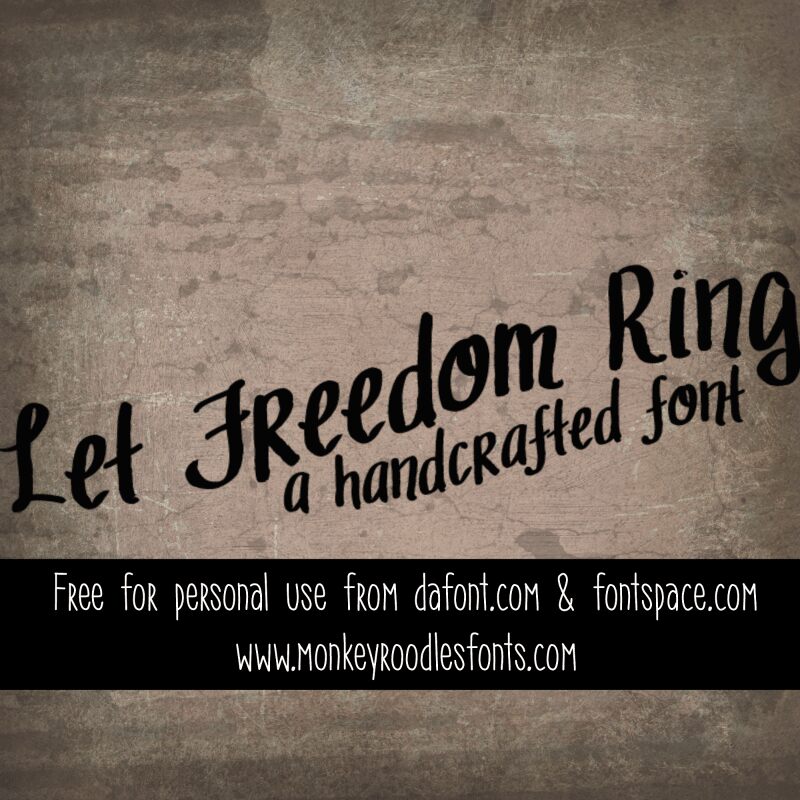
The MRF Let Freedom Ring font, crafted by designer Sabrina Schleiger, exudes a captivating handwritten charm. Its organic, fluid strokes and playful, rhythmic movement evoke a sense of joyful expression, evoking feelings of liberation and carefree spirit. The font's unique character is amplified by its distinct ligatures and expressive flourishes, lending a touch of artistry and personality to any design.
This versatile font lends itself well to a variety of applications, from eye-catching headlines and impactful branding to heartfelt stationery and invitations. Its expressive yet legible nature makes it an excellent choice for projects that seek to convey a warm, personal, and authentic tone, such as greeting cards, event materials, or even editorial pieces. The MRF Let Freedom Ring font's adaptability allows it to seamlessly integrate into both contemporary and vintage-inspired design styles, making it a valuable asset in the creative toolbox.